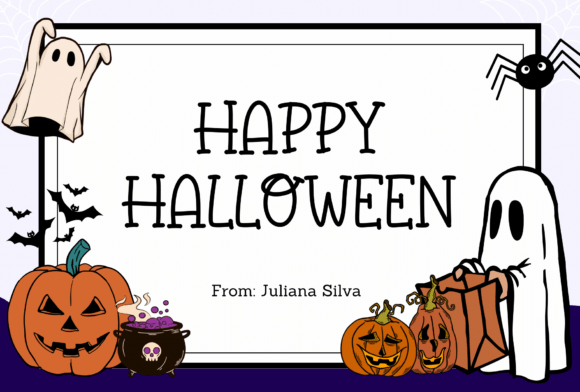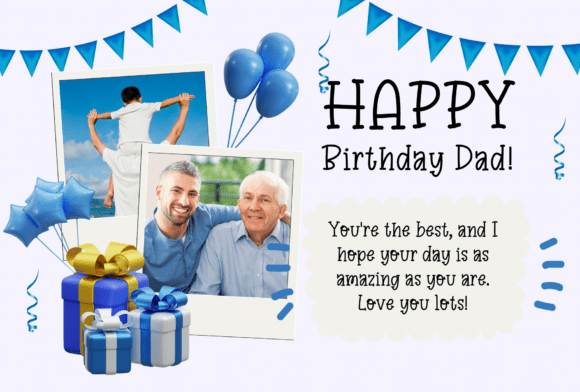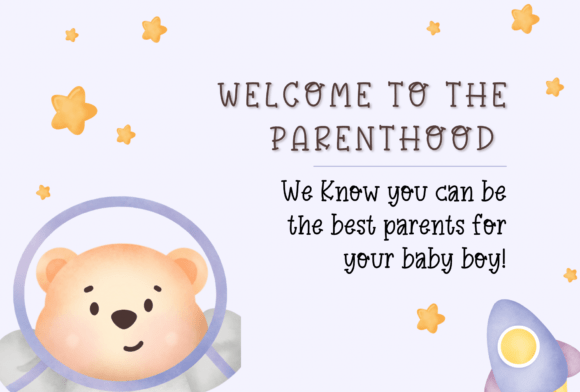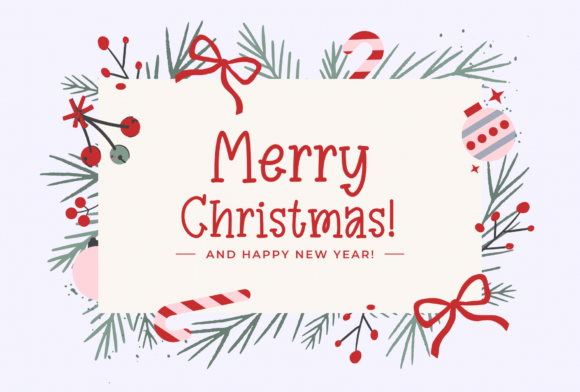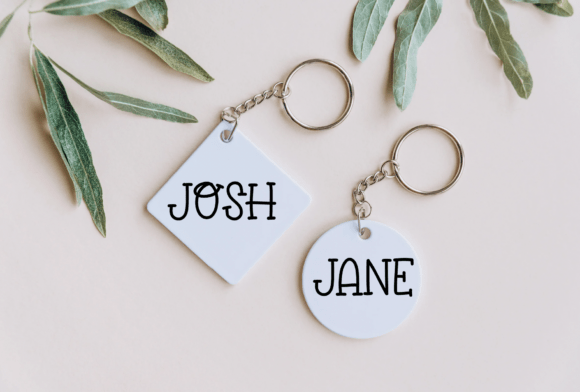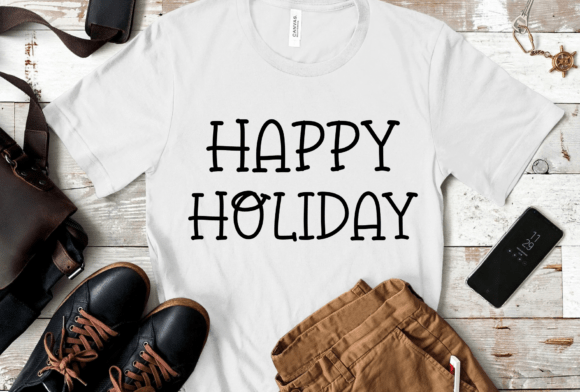
The Ultimate Guide to Blackberry Font: Adding a Playful Touch to Your Designs
I’ll never forget the time I was working on a project for a children’s birthday party, and I was struggling to find the perfect font to match the playful theme. The client wanted something fun, friendly, and eye-catching, but I was coming up blank. That’s when I stumbled upon the Blackberry font, and it instantly brought a smile to my face. With its quirky style and smooth curves, it was exactly what I needed to bring the design to life.
An Honest Review of Blackberry Font
- ✨ Playful and cute handwritten style that adds a fun touch to any design
- ✅ Smooth curves and quirky style that make it perfect for a variety of projects
- 💕 Friendly and approachable vibe that’s sure to charm your audience
- 🎉 Highly versatile and can be used for posters, greeting cards, product packaging, stickers, and social media content
While Blackberry font is an amazing addition to any design, there are a few things to keep in mind:
- 🤔 May not be suitable for formal or professional projects, as it can come across as too playful
- ⚠️ Some characters may not be suitable for small font sizes, as they can become difficult to read
The Backstory Behind Blackberry Font
Blackberry font was designed with the intention of creating a playful and friendly font that would bring a smile to people’s faces. The designer, inspired by the whimsical world of children’s books, set out to create a font that would be perfect for designs that require a touch of fun and personality. With its quirky style and smooth curves, Blackberry font has become a favorite among designers and crafters alike.
Q: What type of projects is Blackberry font best suited for?
A: Blackberry font is perfect for projects that require a playful and friendly touch, such as posters, greeting cards, product packaging, stickers, and social media content.
Q: Is Blackberry font available in different languages?
A: Blackberry font may not have full language support, but it does include a range of characters and glyphs that can be used to create a variety of designs.
Q: Can I use Blackberry font in combination with other fonts?
A: Absolutely! Blackberry font can be paired with other fonts to create a unique and interesting design. Experiment with different font combinations to find the perfect look for your project.